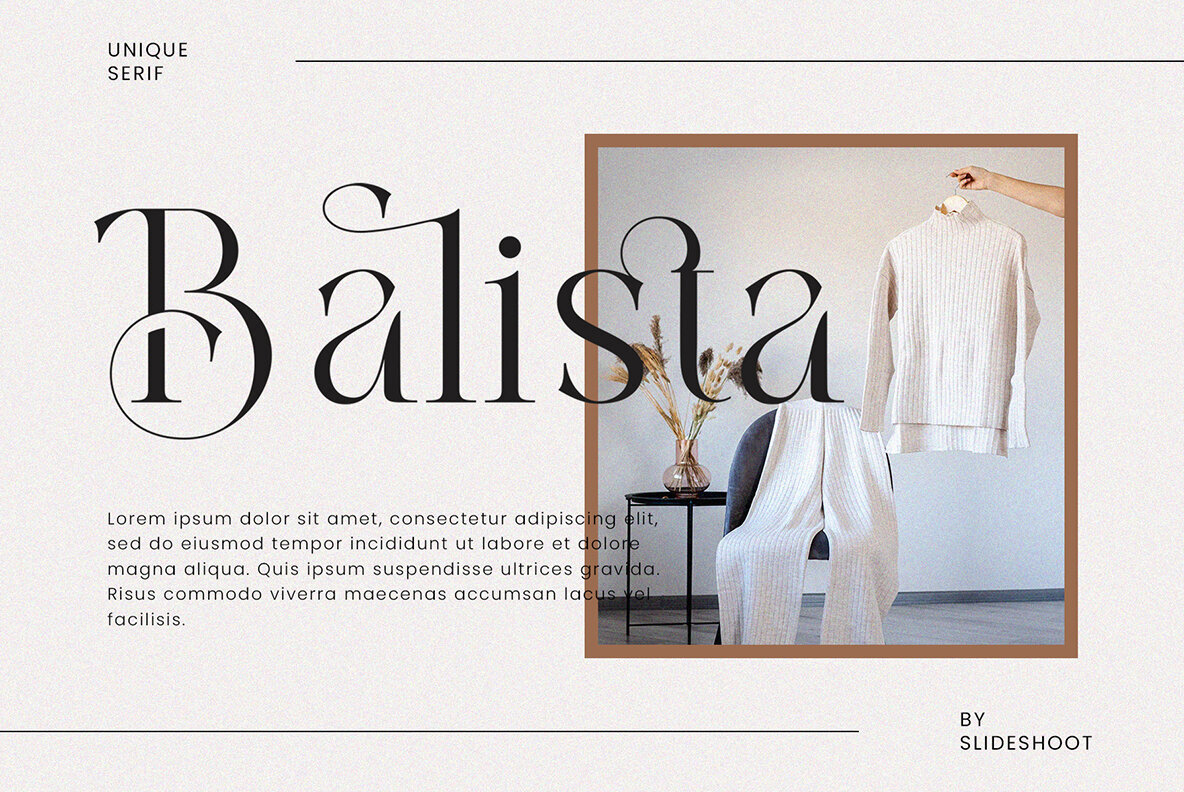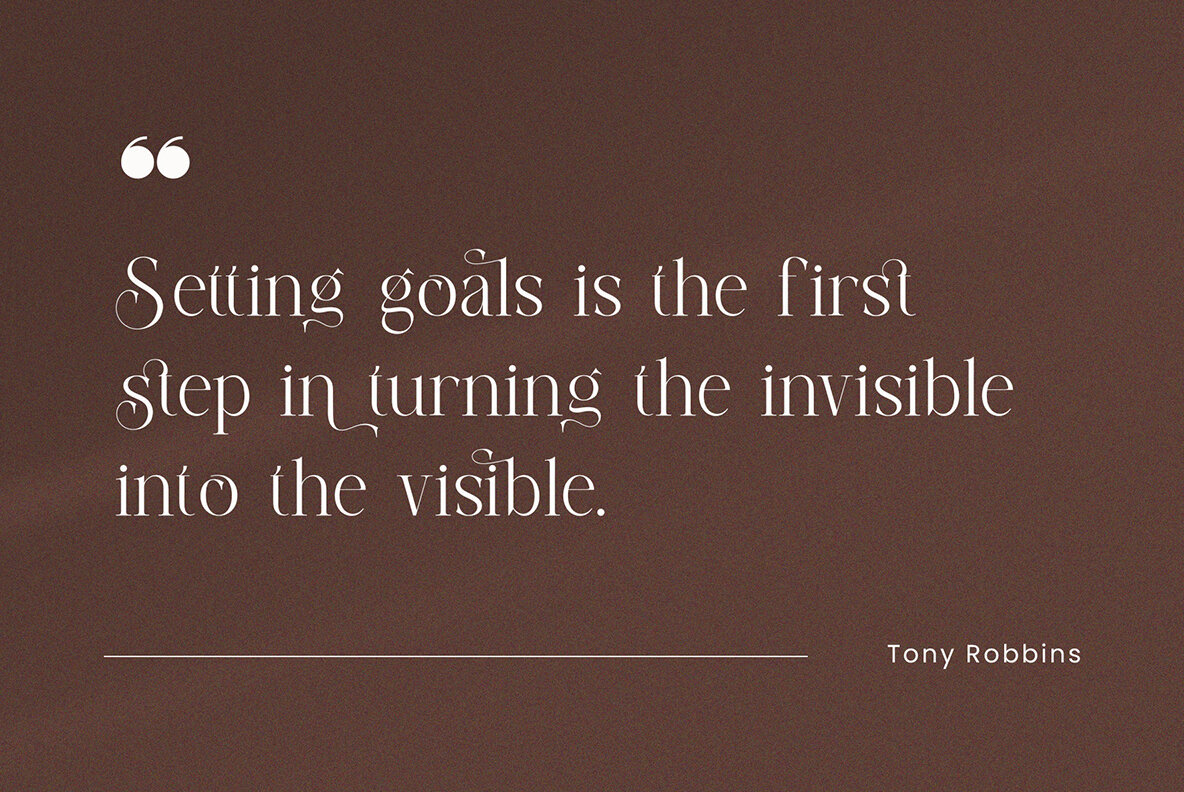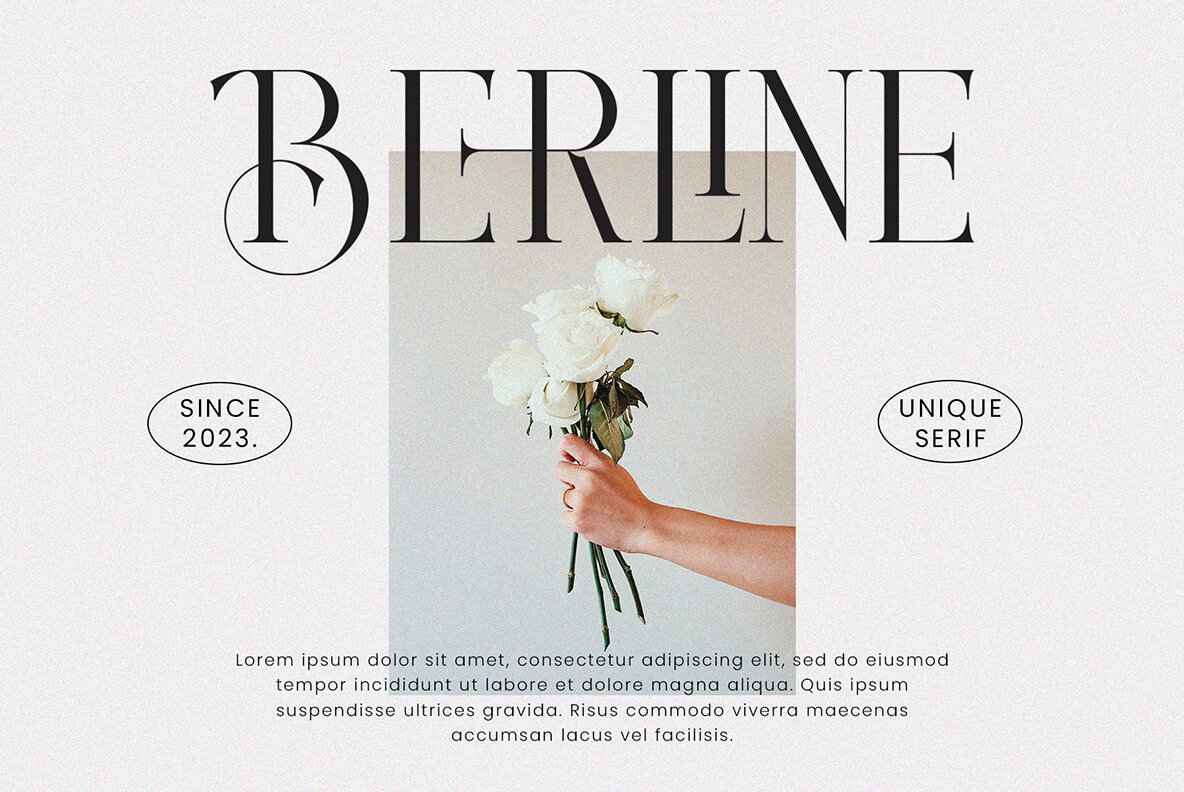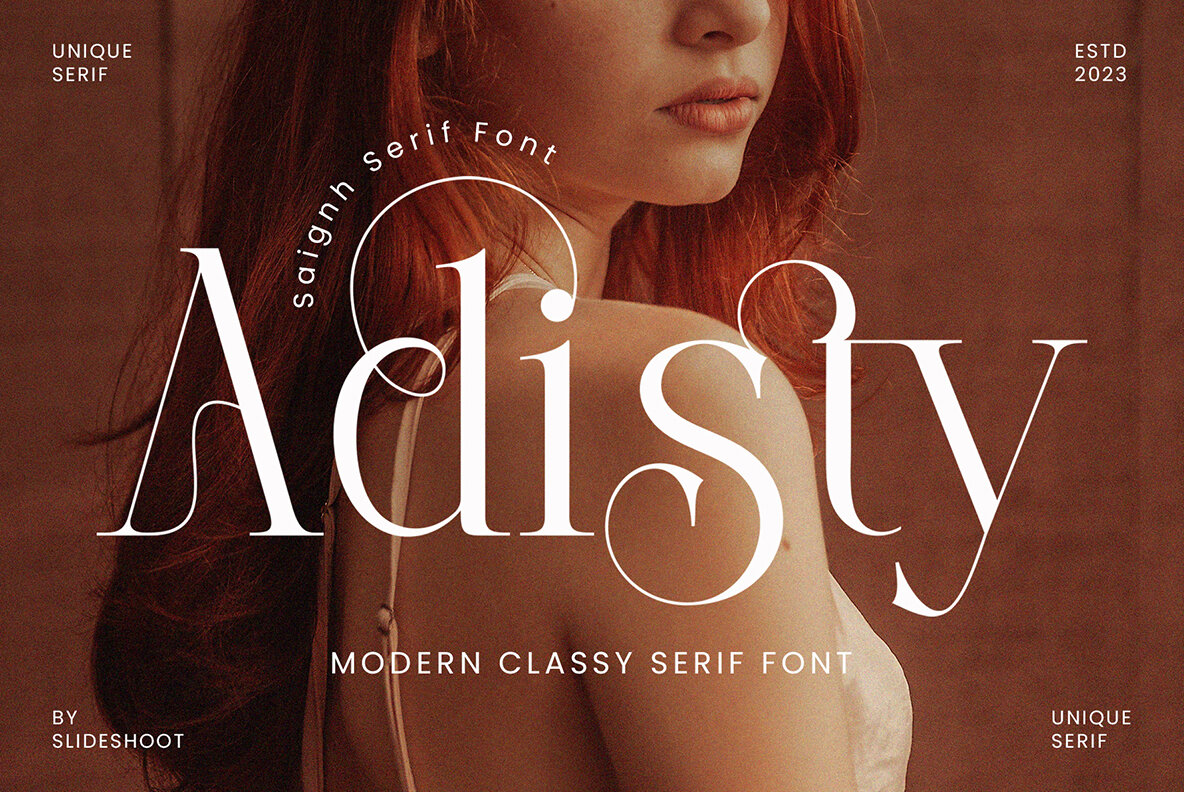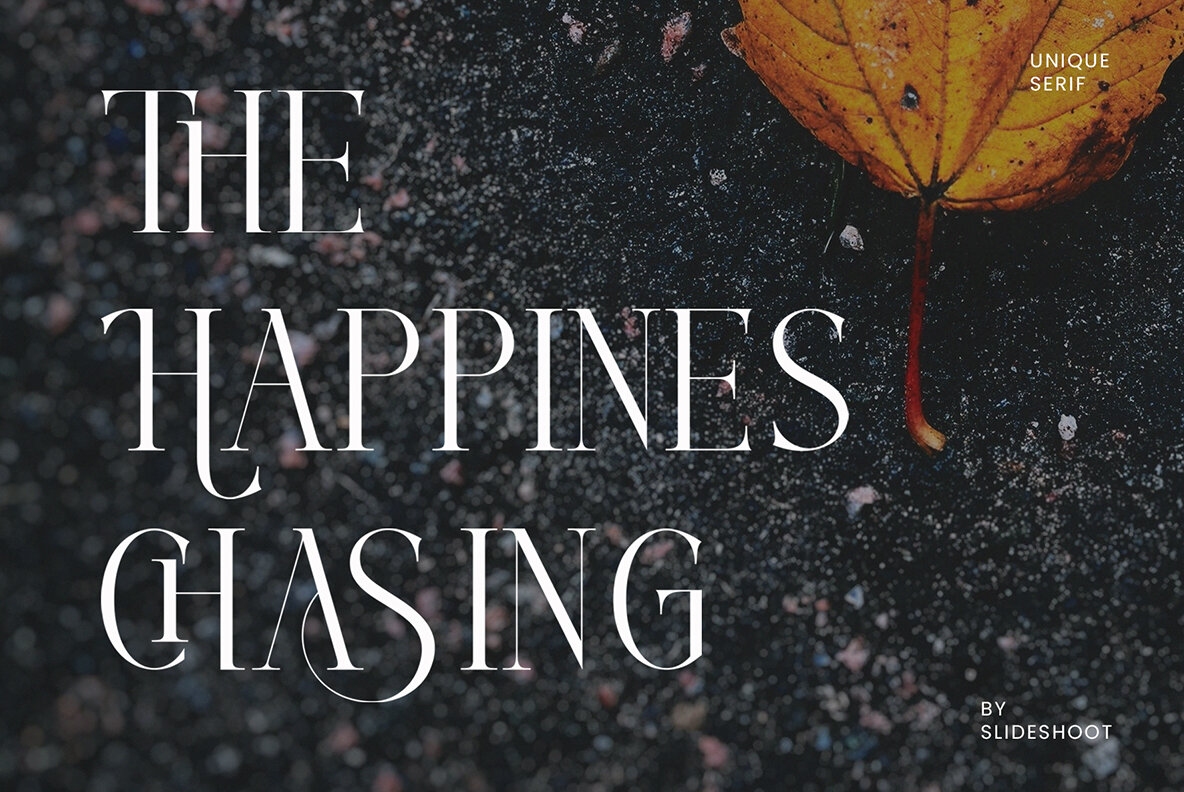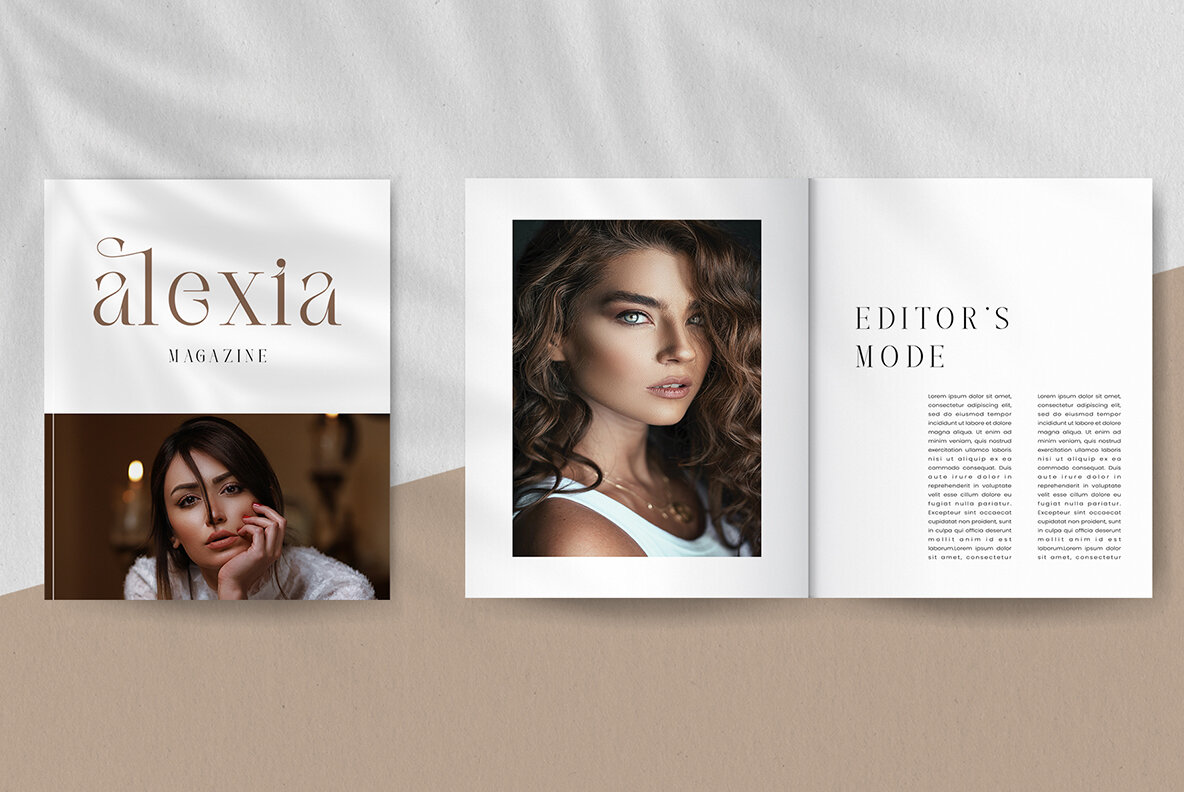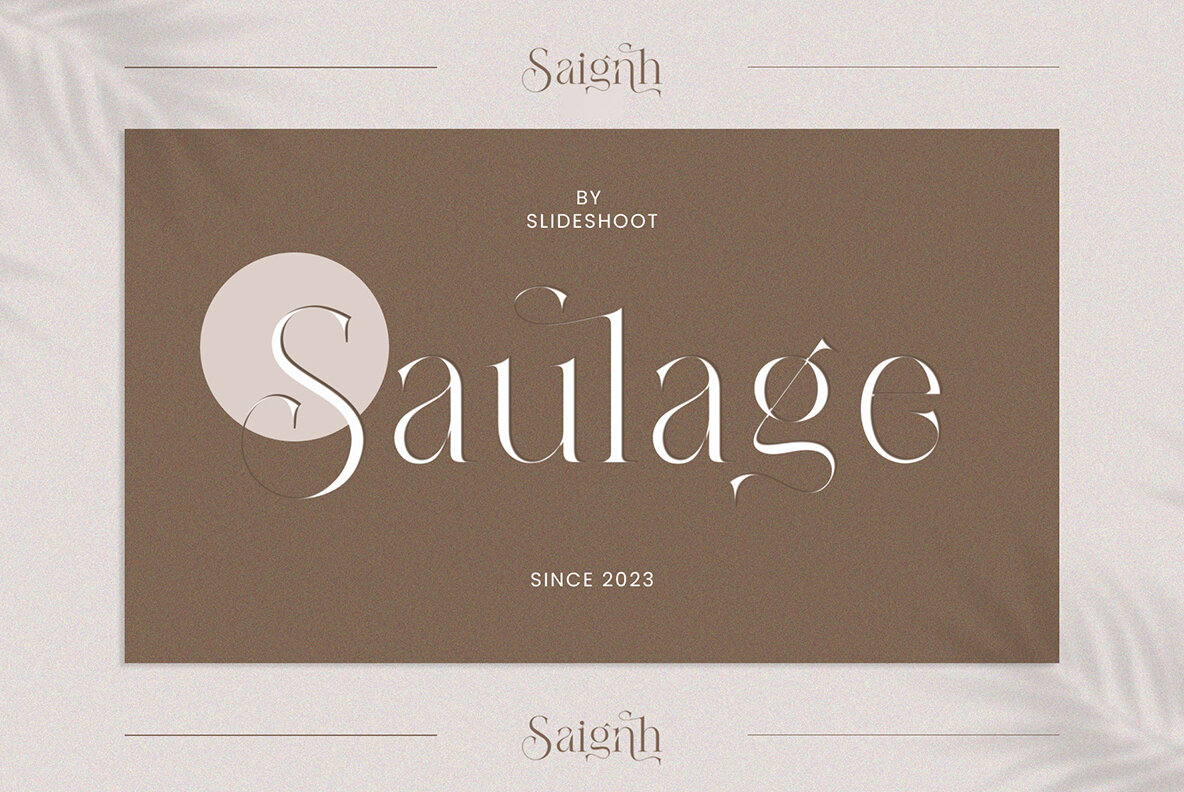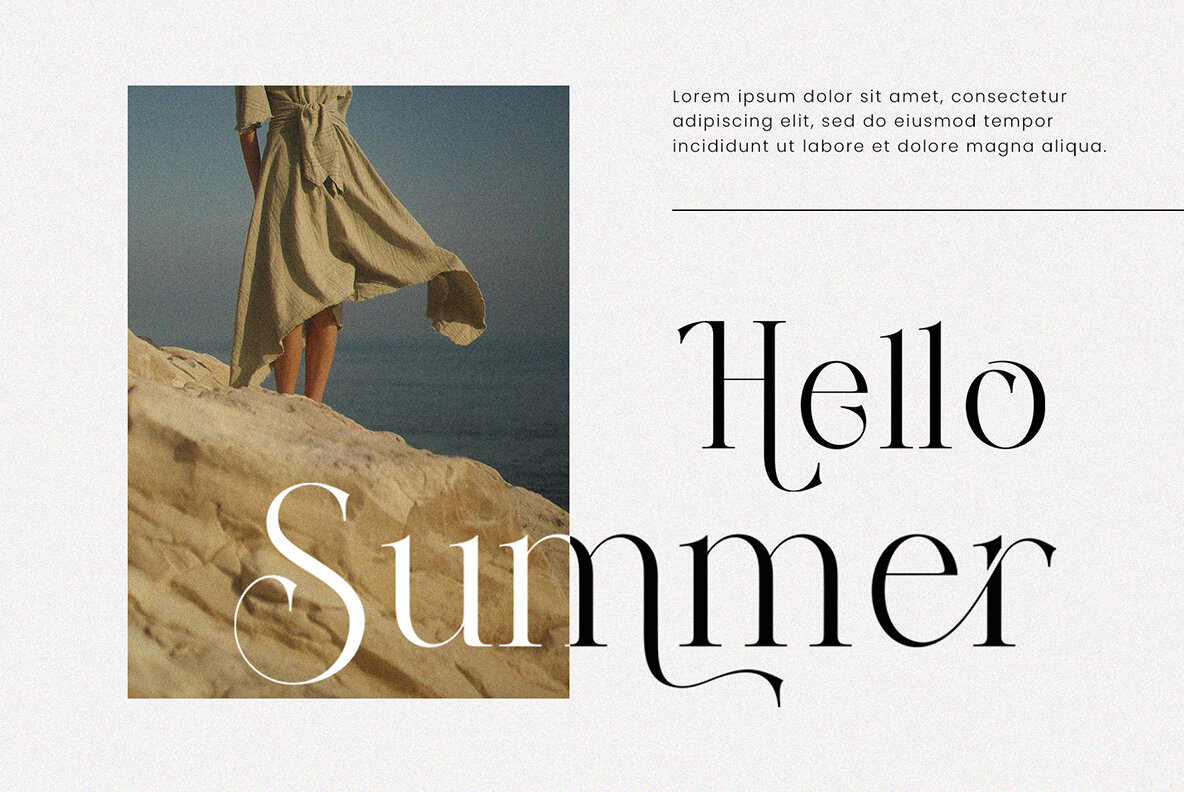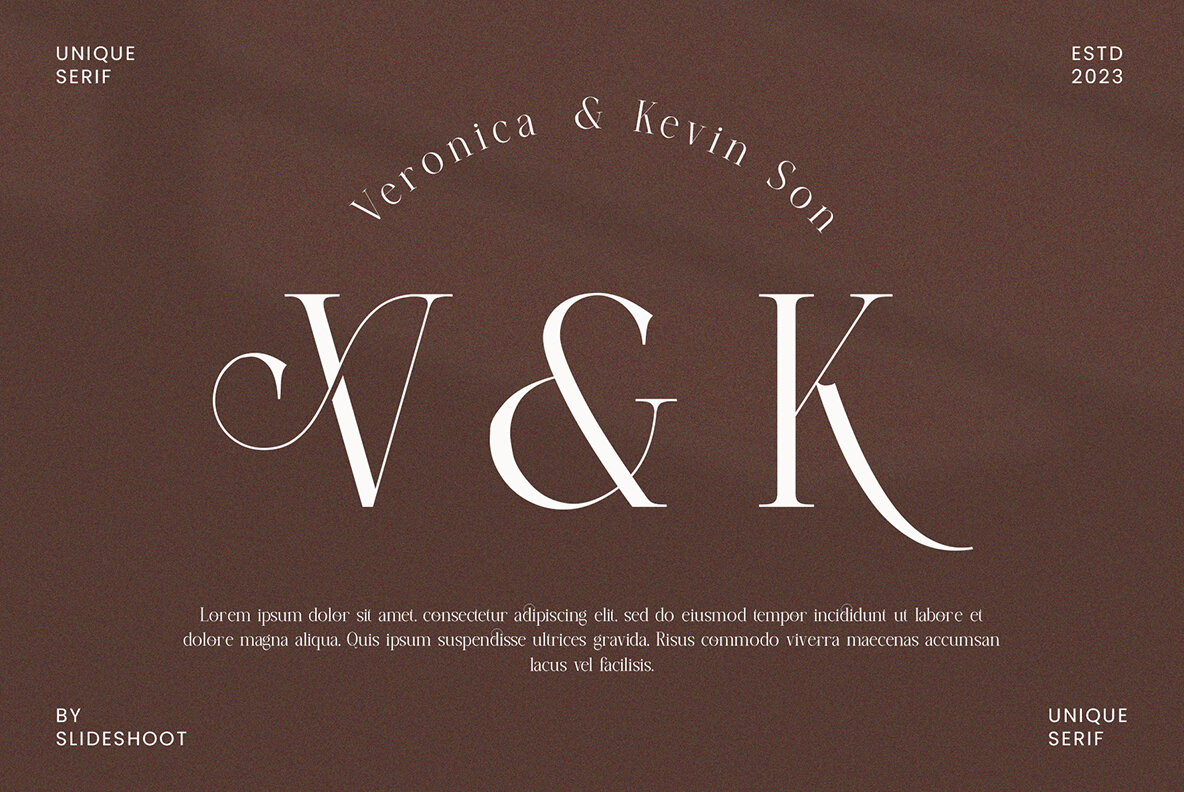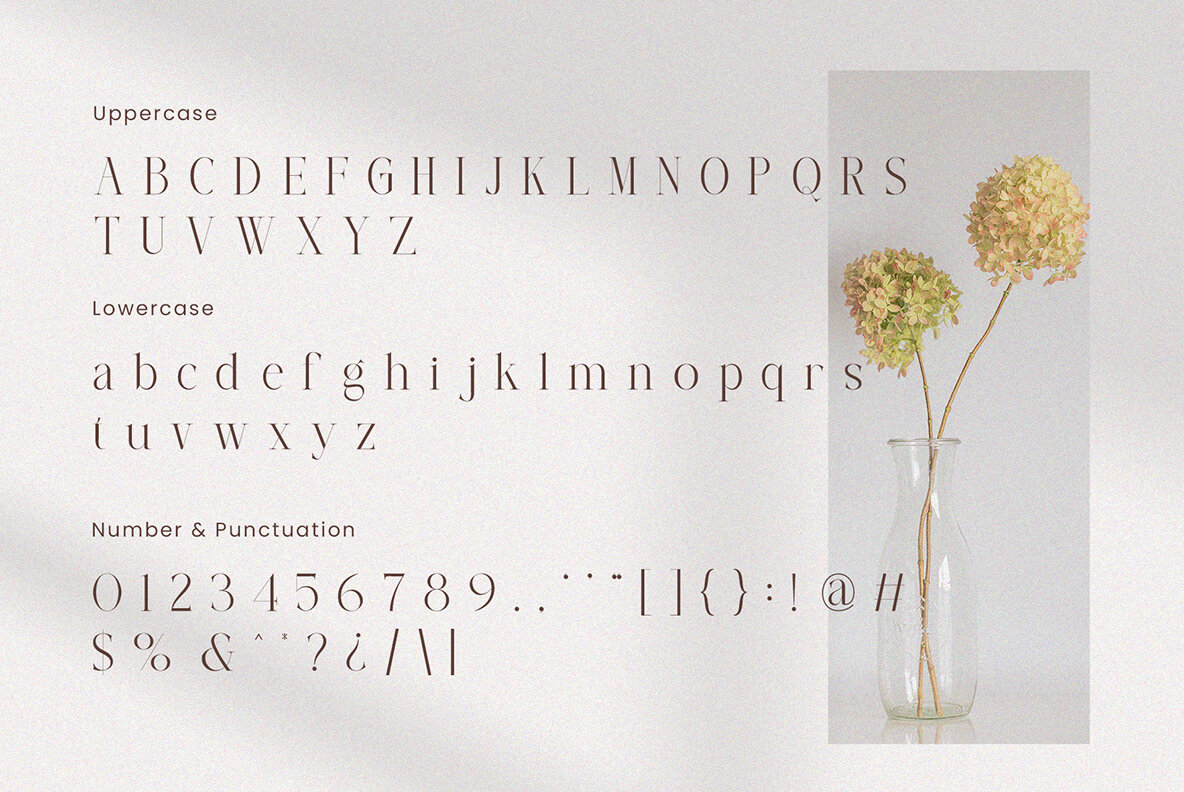
Saignh Font
Saignh Regular
Saignh Serif by Slide Font is an exquisite serif typeface that blends balance, smoothness, and style. Its graceful characters make it an ideal choice for invitation cards, company logos, movie titles, business cards, book covers, and brand names, providing an air of sophistication to every project.Saignh Serif: A Sophisticated Typeface for Elegant Designs